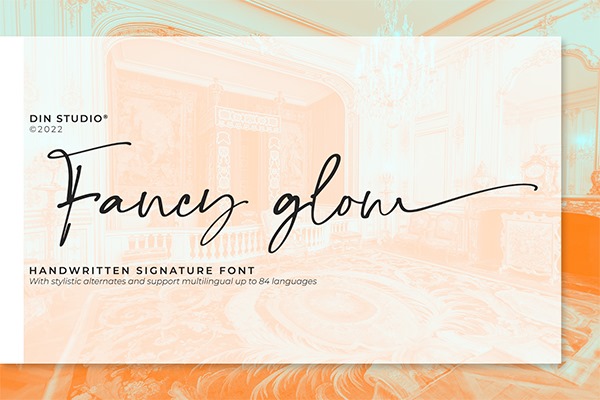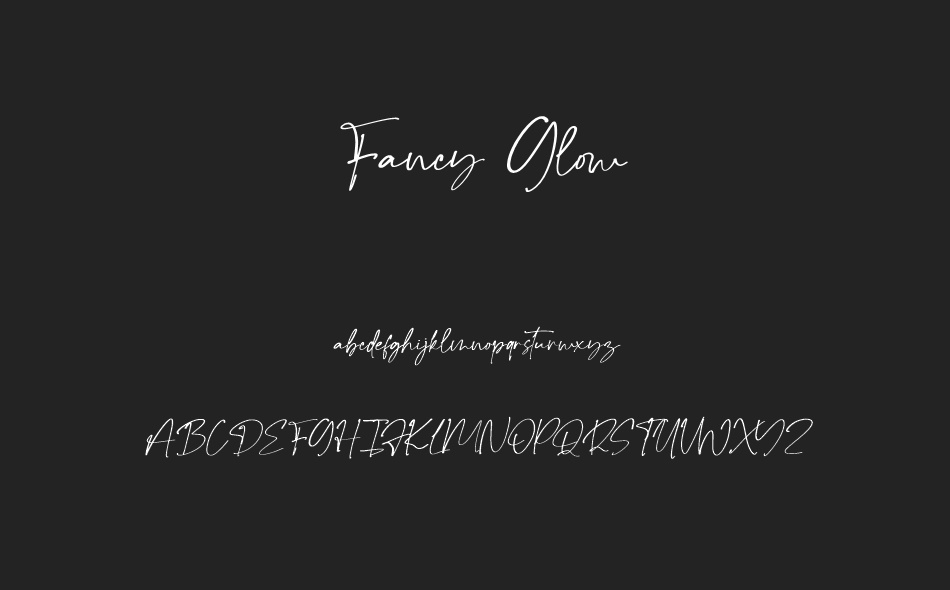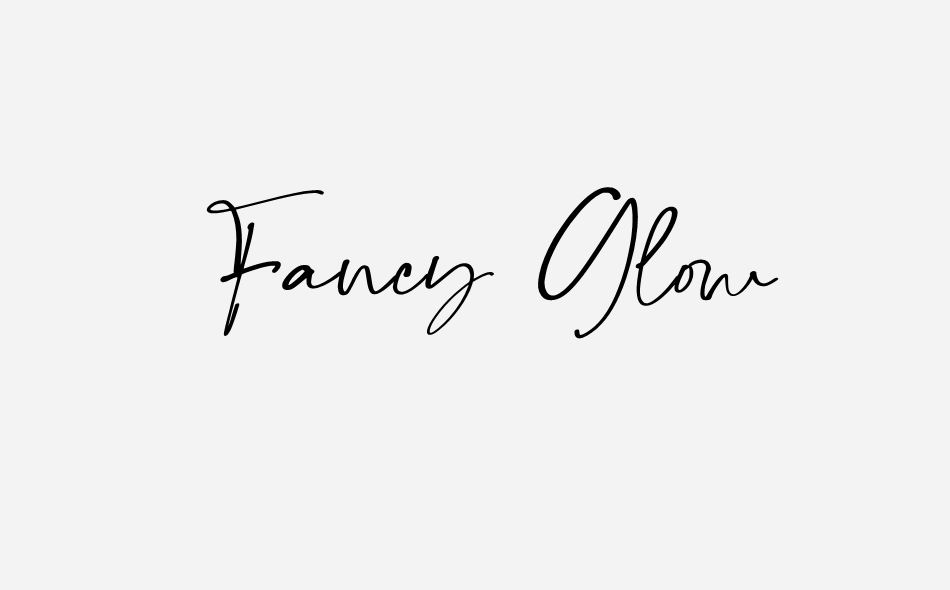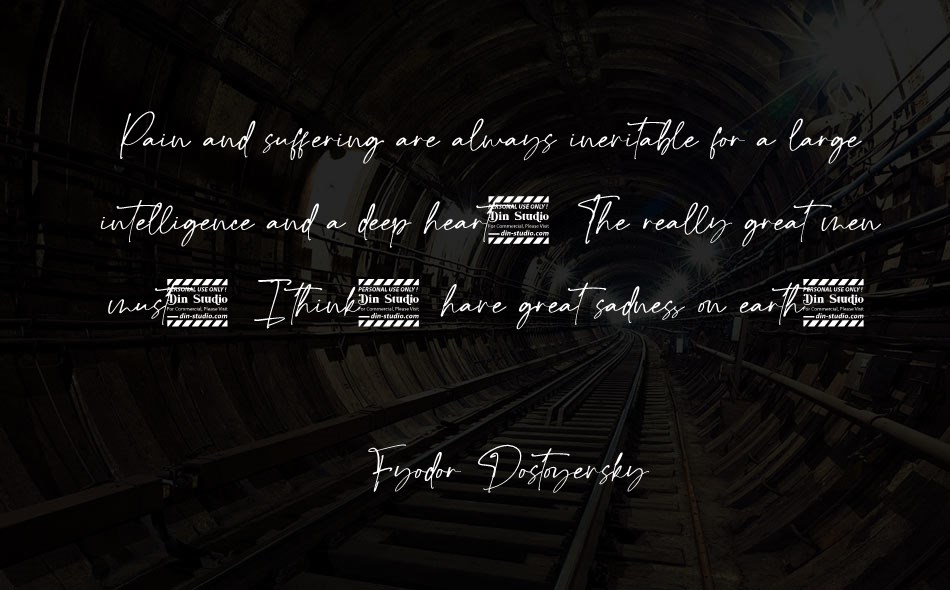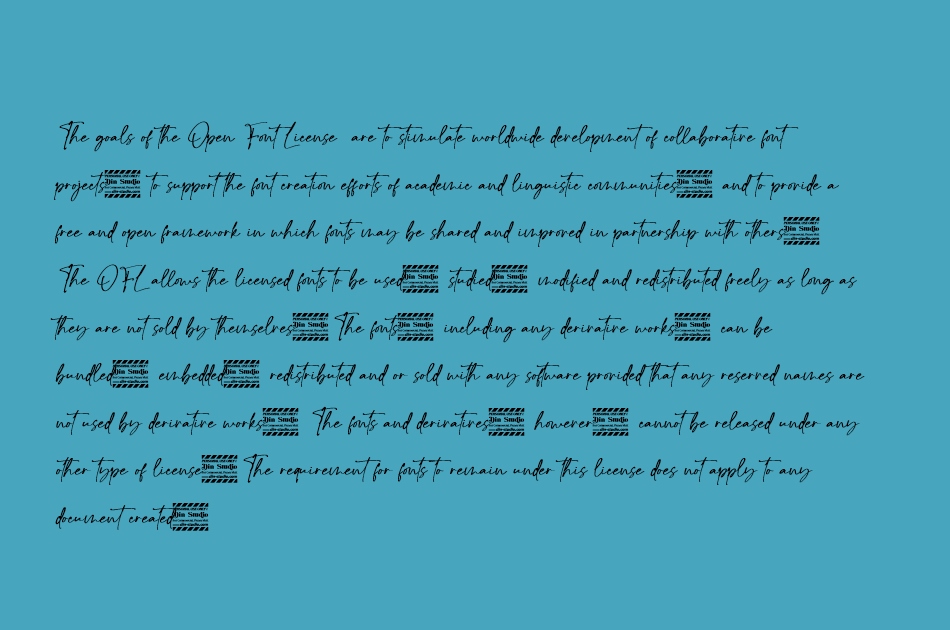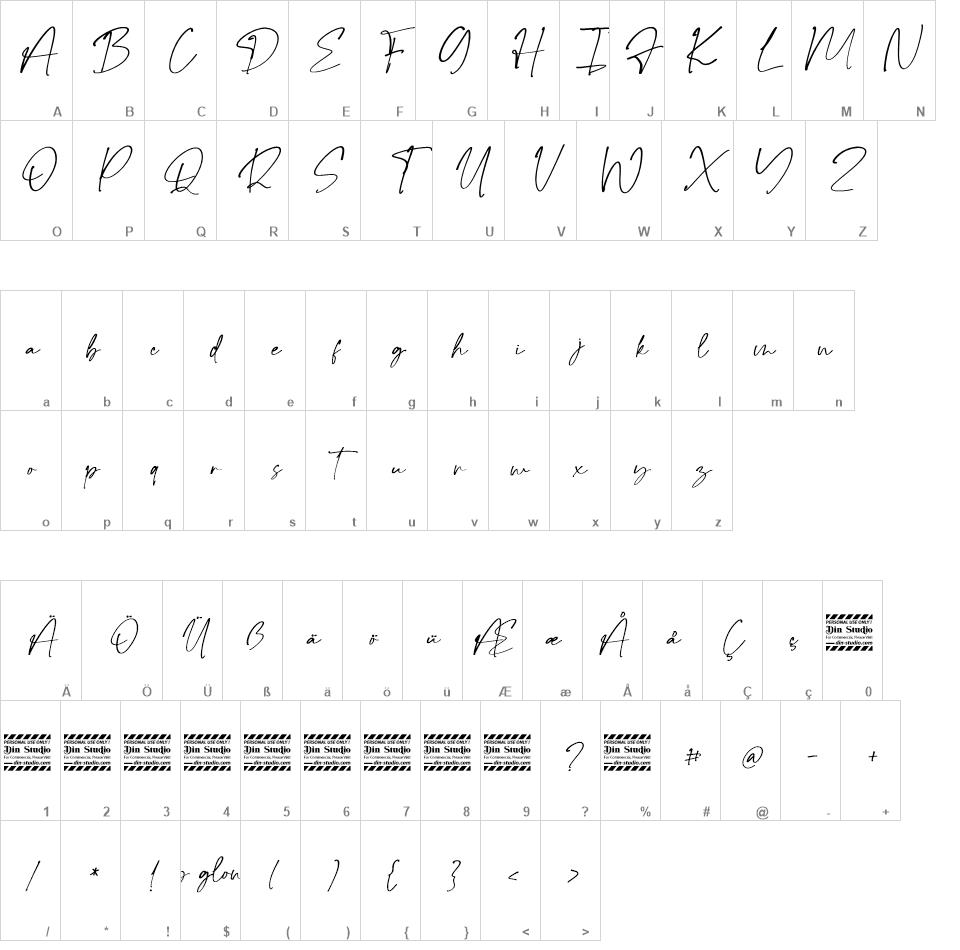
Fancy Glow font
Now you can make stunning design project with Fancy Glow. A touch of sophisticated yet fancy style
font. The perfect way to brighten up your project. Fancy Glow is a script font that resembles actual
handwriting. This one is suited to any sizes of text. The curves of the characters convey a sense of
elegance and will not go out of style. In addition, it has more fascinating features that allows you
maximize your design.
Features:
• Stylistic Sets
• Ligatures
• Multilingual Supports
• Numerals and Punctuations
• PUA Encoded
It can be used for many design projects, such as poster, logo, book cover, branding, heading, printed